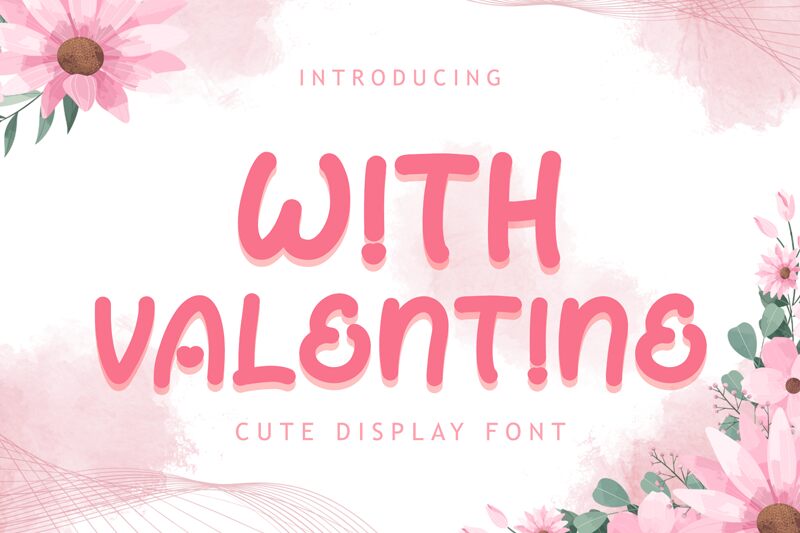
With Valentine font by Yoga Letter is a handwritten free font with a friendly, modern, and informal style. Featuring rounded shapes, the font will bring approachable, fun, and vibrant energy to any work you use it in. The inviting style fits perfectly into all types of public and commercial purposes.
With Valentine font is a popular choice for branding, logos, labels, packaging, children’s books, toy design, posters, t-shirts, stationery design, menu design, and a lot more. It takes your visuals away from formal design and lets them speak in a much brighter voice.